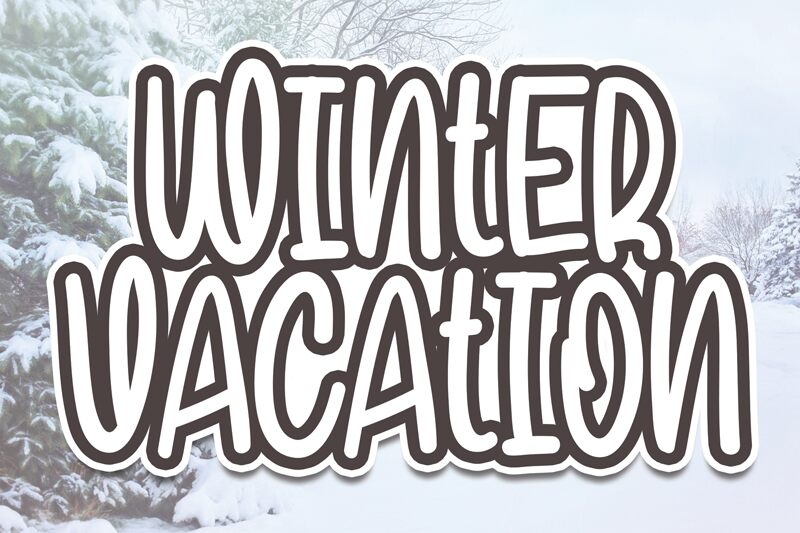
Winter Vacation
Winter Vacation, a handwritten gem designed by Scratchones, embodies the warmth and joy of cozy winter getaways. Its semi-condensed width gives it a snug and friendly feel, while maintaining readability across various applications. The playful yet elegant strokes of Winter Vacation offer a personal touch reminiscent of a handwritten letter from a loved one.
The font's casual elegance makes it an excellent choice for invitations, greeting cards, and branding projects that require a touch of intimacy. Furthermore, its distinctive character ensures standout graphics for social media posts or any creative endeavor seeking to convey comfort and cheerfulness with an artisanal flair.
Embrace the charm of Winter Vacation for your next project and let its unique style infuse your designs with the delightful spirit of wintertime leisure.